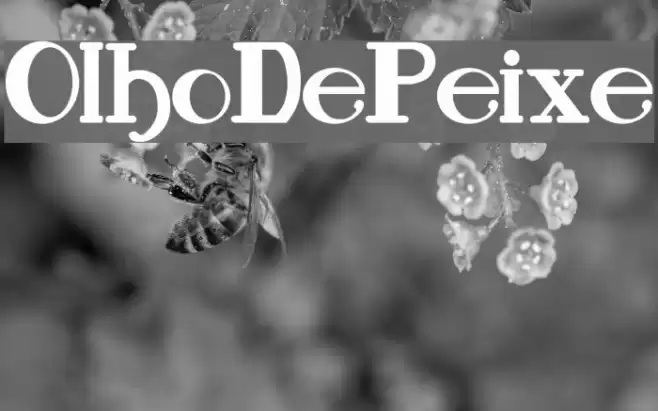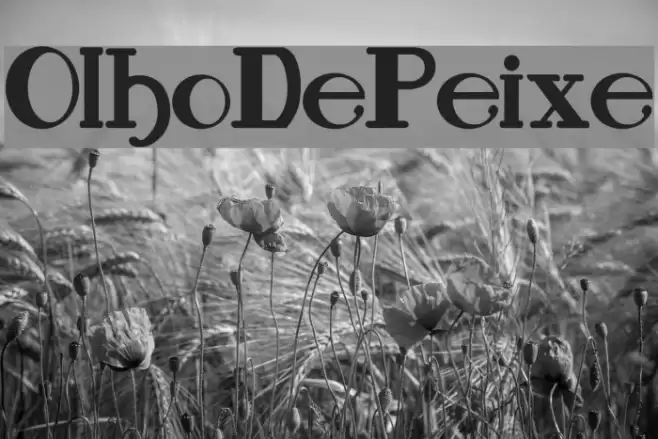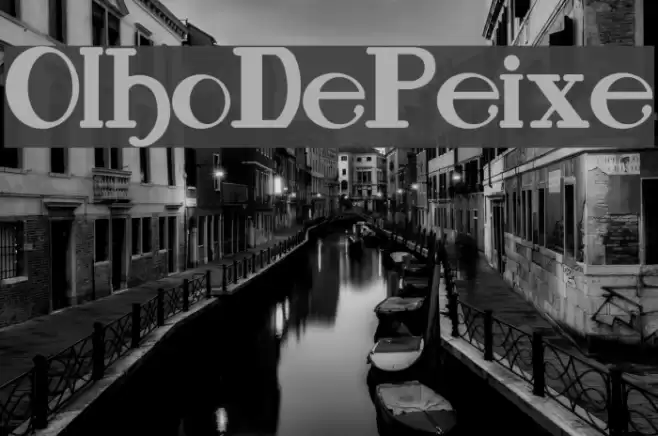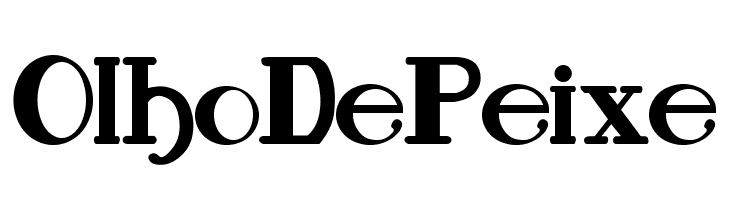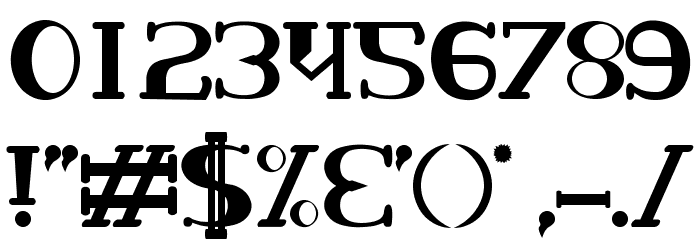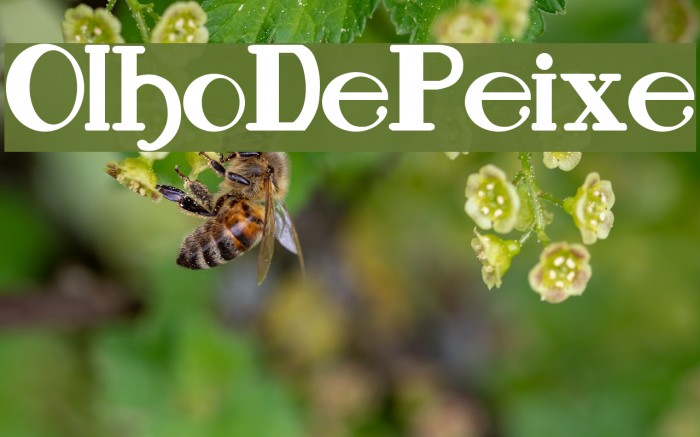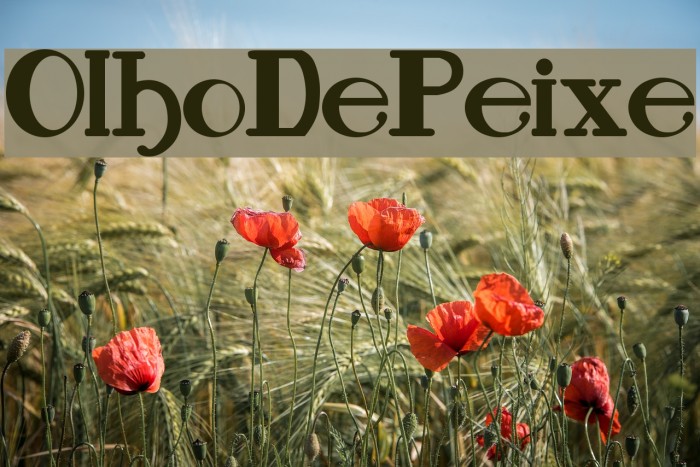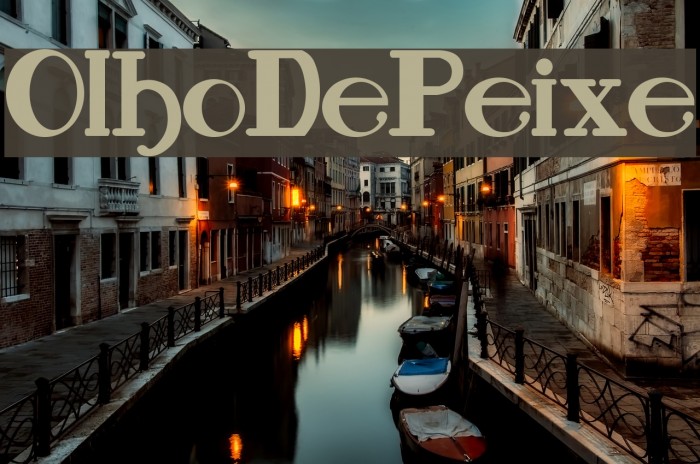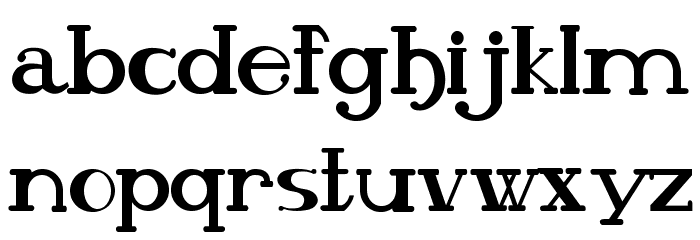
OlhoDePeixe Font
OlhoDePeixe Description
This font features a bold and distinctive style with a strong presence. The uppercase letters are characterized by thick strokes and a slight curvature, giving them a unique flair. The lowercase letters maintain a consistent weight, with rounded edges that add a touch of softness to the overall appearance. The numerals are bold and easily readable, with a consistent stroke width that matches the letters. Special characters are creatively designed, incorporating the same boldness and curvature seen in the alphabet. This font stands out with its decorative elements, making it suitable for eye-catching designs.
A bold, decorative font with unique curvature and strong presence from Uncategorized fonts.
- Proposed Projects: Ideal for branding, posters, headlines, and any design that requires a bold and distinctive look.